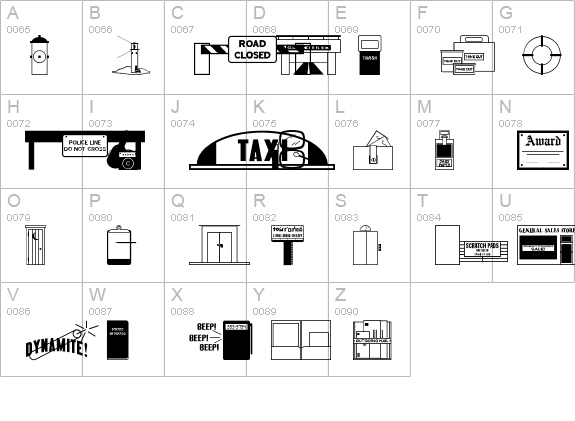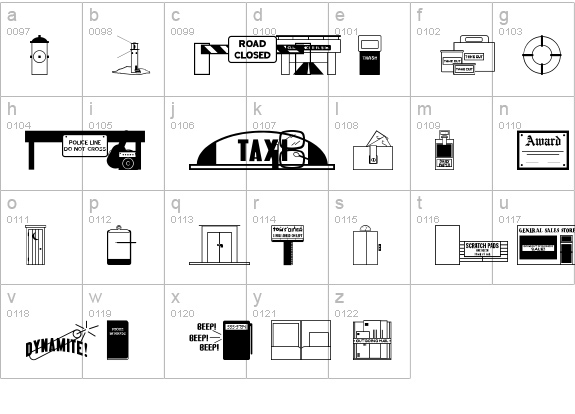
Collected Dings JL Font Details
Collected Dings JL font is a whimsical and charming typeface that is sure to add a touch of fun to any design project. This unique font features a collection of quirky and creative dingbats that can be used to enhance your text with playful icons and symbols. Whether you're creating invitations, posters, or digital artwork, Collected Dings JL font is the perfect choice for adding a touch of personality to your designs. Best of all, Collected Dings JL font is available for free download at FontsMarket.com. This means you can easily access this delightful font and start using it in your projects without any cost. Don't miss out on the opportunity to add a fun and creative element to your designs with Collected Dings JL font - download it today and let your creativity shine!